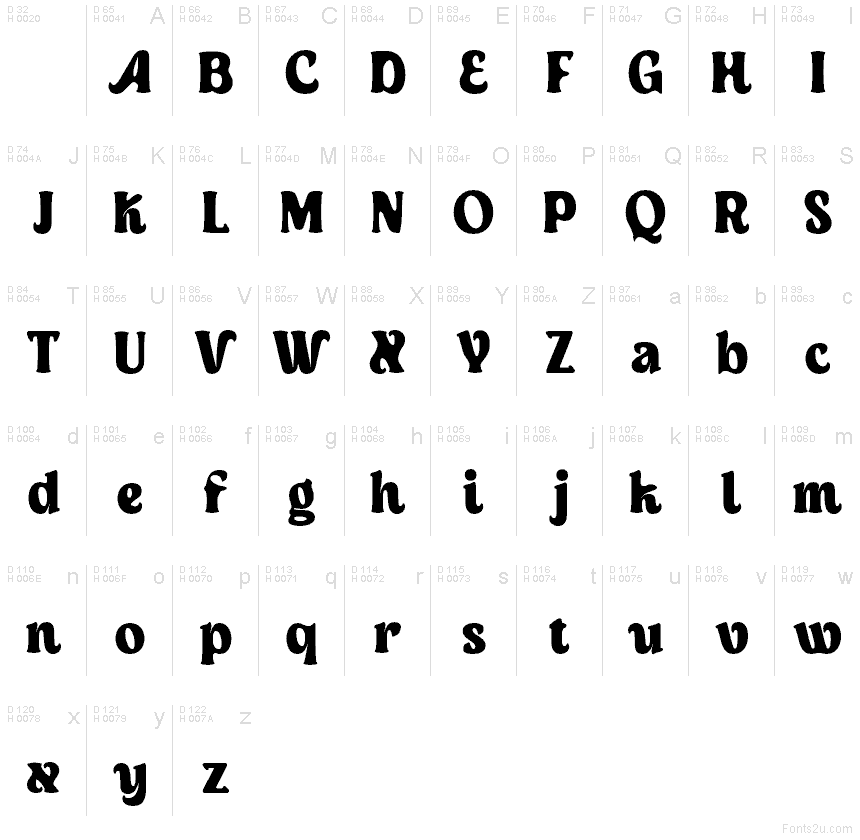
CSAsteriaDrawn-Regular Demo
CS Asteria Drawn font by Craft Supply Co. is a free display retro font featuring a classic, bold, vintage-inspired style. Decorative in nature with its expressive serifs and ornate detailing, the typeface draws attention with exceptional taste and timeless elegance.
CS Asteria Drawn Demo